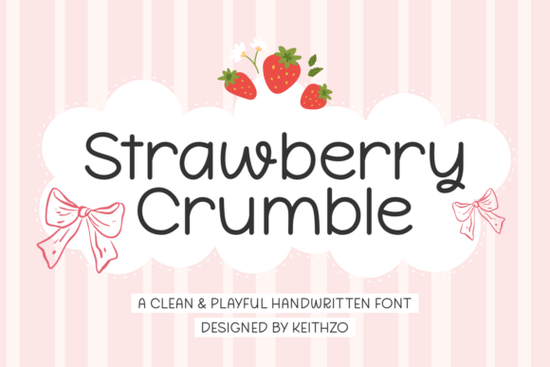
If you're looking for a handwritten font that feels cheerful without trying too hard, the Strawberry Crumble font might be exactly what your next project needs. It’s light, friendly, and full of personality perfect for everything from greeting cards to kids’ brand logos or even Cricut vinyl decals.
This font stands out because it doesn’t lean into overly bouncy or exaggerated letterforms. Instead, it offers clean, readable strokes with just enough whimsy to feel personal. That balance makes it especially useful if you’re creating content for children, lifestyle brands, or seasonal crafts where warmth matters more than flashiness.
What kinds of projects work best with Strawberry Crumble?
Thanks to its approachable style, Strawberry Crumble fits naturally into a range of creative uses:
- Print-on-demand goods like mugs, tote bags, or T-shirts featuring uplifting quotes
- Handmade cards for birthdays, baby showers, or teacher appreciation
- Social media graphics that need a soft, inviting tone think Instagram quote posts or Pinterest pins
- Classroom posters or educational printables where legibility meets charm
- Sticker designs for planners, journals, or scrapbooking kits
It also pairs well with cutting machines like Cricut or Silhouette. The smooth curves and consistent line weight mean fewer snags during weeding or printing, which crafters will appreciate.
How does it compare to other playful script fonts?
If you’ve browsed Creative Fabrica’s script collection before, you’ve probably seen fonts like Barbie Valentines Outline, which leans into romantic flair, or Hello Wicked, which brings bold, theatrical energy. Strawberry Crumble sits comfortably in the middle less dramatic than Hello Wicked, less ornate than Barbie Valentines, but still full of character.
For those who prefer something even simpler, Simple Preppy offers a cleaner academic vibe, while Blueberry adds subtle texture for a hand-lettered look. And if floral elegance is your goal, Beautiful Garden delivers delicate swashes perfect for wedding invites or botanical branding.
Strawberry Crumble doesn’t try to do everything it excels at being consistently sweet, readable, and versatile across both digital and physical formats.
Is it beginner-friendly for small businesses or hobbyists?
Absolutely. One of the best things about this font is how easy it is to use right out of the box. You don’t need advanced design skills to make it look good. Just type your message, choose a soft pastel or warm neutral color, and you’ve got an instantly likable visual.
For print-on-demand sellers, that means faster mockup creation. For teachers or parents making classroom materials, it reduces the time spent tweaking layouts. And for Etsy shop owners designing custom stickers or party printables, it offers a distinctive yet accessible aesthetic that customers recognize as “thoughtful” rather than generic.
Plus, since it’s a single-style font (not part of a large family with multiple weights), there’s no confusion about which version to use just one reliable option that works across contexts.
Tips for getting the most out of Strawberry Crumble
To keep your designs fresh and avoid repetition:
- Pair it with a clean sans-serif like Montserrat or Lato for contrast in posters or social graphics.
- Use generous spacing this font shines when letters aren’t crowded.
- Stick to short phrases. While readable, it’s still a script font, so long paragraphs can tire the eye.
- Experiment with color overlays on textured backgrounds (like kraft paper or watercolor washes) to enhance its handmade feel.
And remember: because it’s optimized for both screen and print, you won’t run into unexpected rendering issues when moving from digital mockups to physical products.
Whether you’re crafting a birthday banner for your child’s room or designing a logo for a new line of organic kids’ snacks, Strawberry Crumble adds just the right touch of gentle joy without overwhelming your message.